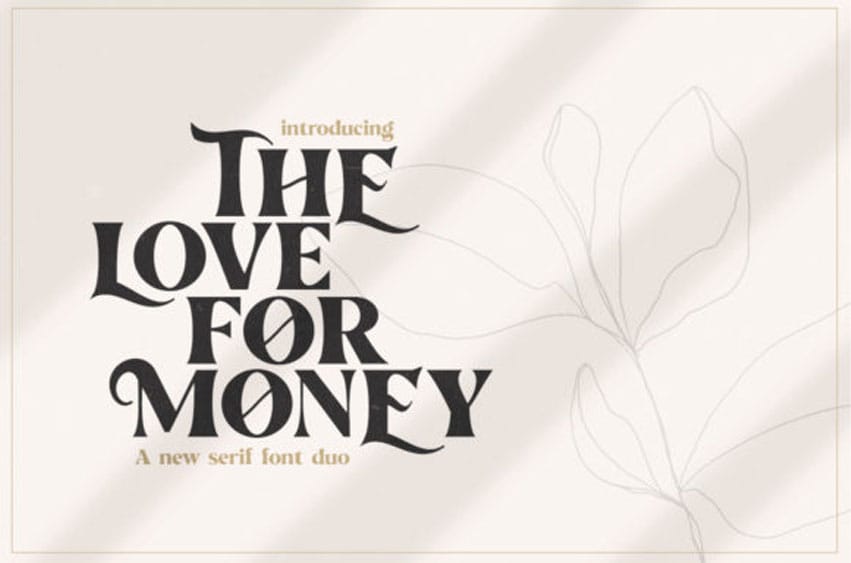
The Love for Money Font feels romantic and editorial at the same time, making it the ideal font for delivering any message with confidence and charm.
This font is here to enhance the quality of your designs.